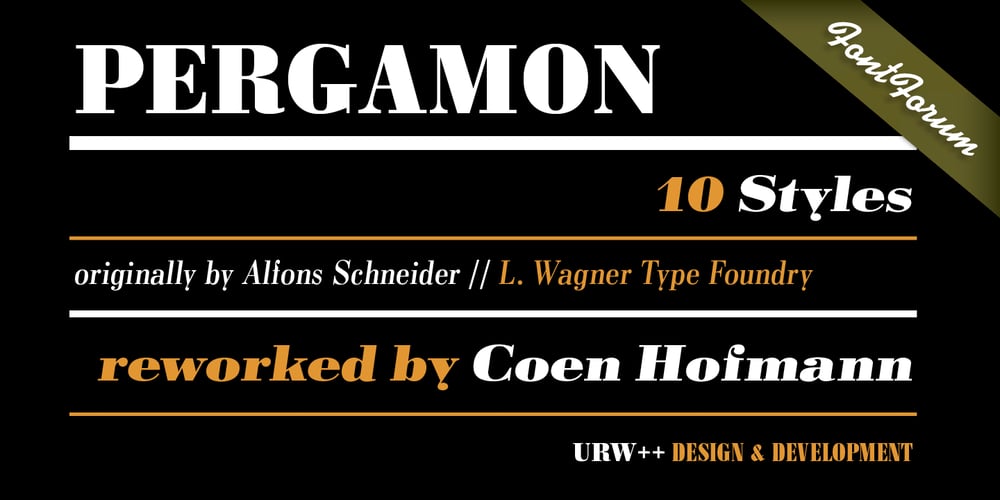
Pergamon Font Family was designed by Coen Hofmann and published by URW Type Foundry. Pergamon contains 14 styles and family package options. The Pergamon series is a creation of Alfons Schneider (1890–1946) and was issued by the foundry of Ludwig Wagner in Leipzig in 1937/1940, though the website of the Klingspor-Museum says that several of the faces were probably produced after the death of Schneider. This digital version is extended with the necessary OT characters and signs, while also the “символы кириллицы” are added. Also, in addition to the members of the family designed by Schneider, regular, italic, bold and bold italic extended versions were produced. The specimens of Ludwig Wagner stated emphatically: “In allen Graden werden beide K K geliefert”, so these two forms are in all the faces, while the two condensed members also have k k, as the specimens said that this alternative character was also in these two faces.